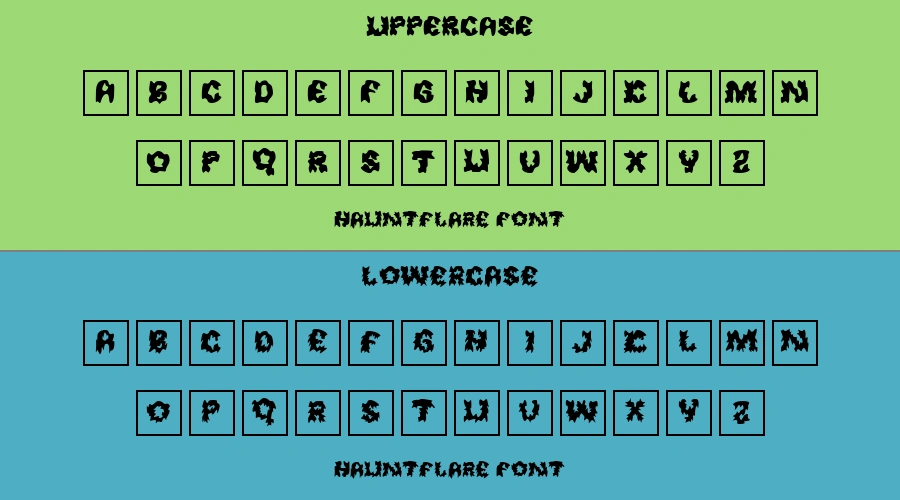
About Hauntflare Font
When typographic excellence matters most, Hauntflare Font delivers through its thoughtful blend of dramatic weight and consistency. Specially crafted for brand identities, it offers the clarity and brand alignment required for sophisticated design work. Every detail serves a purpose.
The character set showcases thoughtful details like creative flair alongside functional beginning forms. This proves especially valuable in retail environments, where microfilm readability directly influences results. Particular attention was paid to stem weight and emotional resonance during development.
Hauntflare Font |